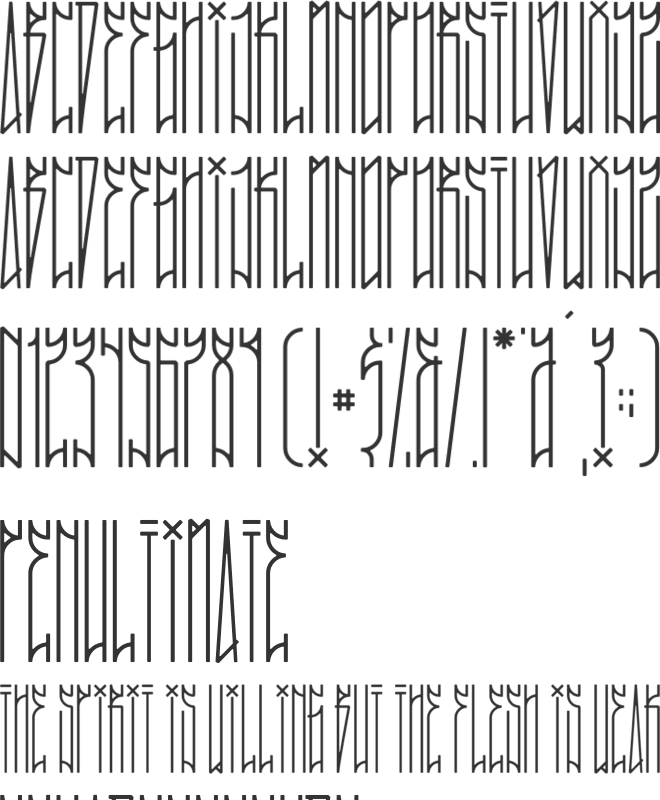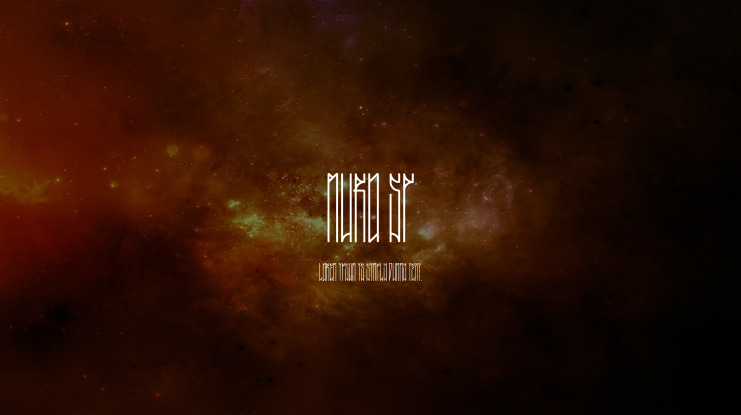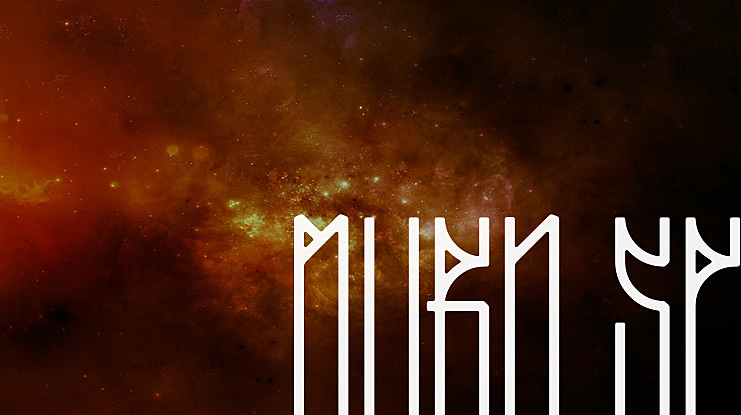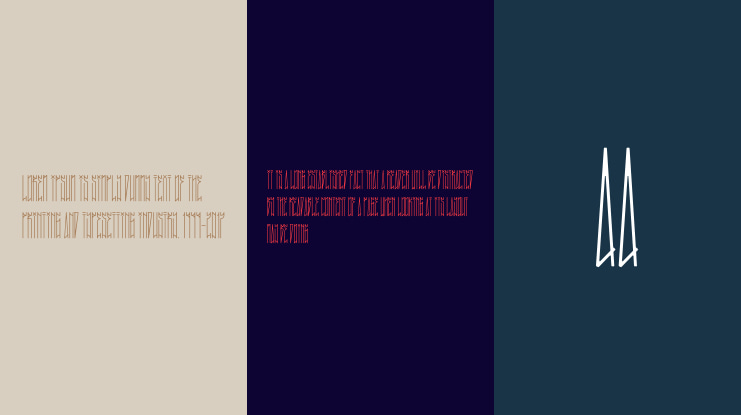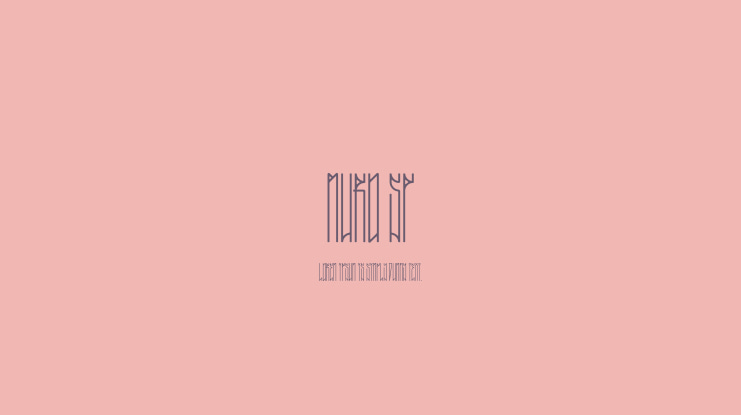
MURO SP Font
MURO SP is a typeface inspired by the 'pixo', an urban culture form of expression that covers the buildings and walls of São Paulo with vertical big letters, a unique and original typography style.